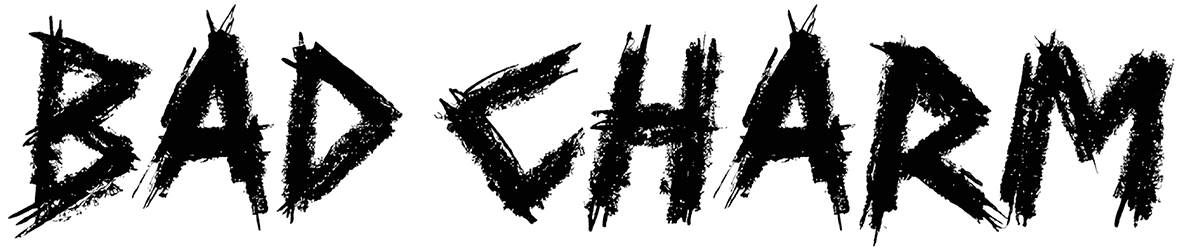
Bad Charm Font
If you crave to take further steps in designing high-end graphic content, you should never overlook a mysterious horror font such as Bad Charm. Due to its geometrical and scratchy style, this all-caps font can be included in video game brochures, movie posters, product packaging, flyers, or stickers.